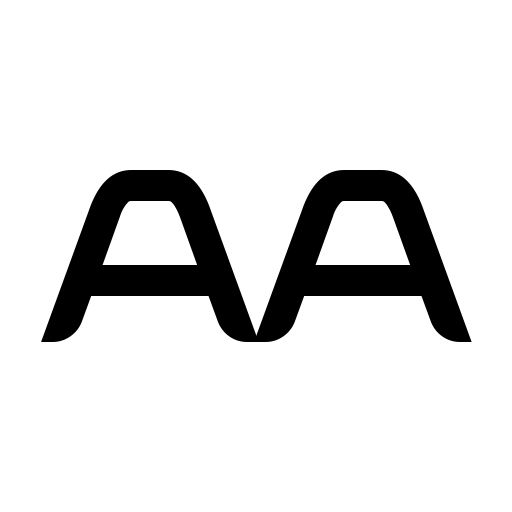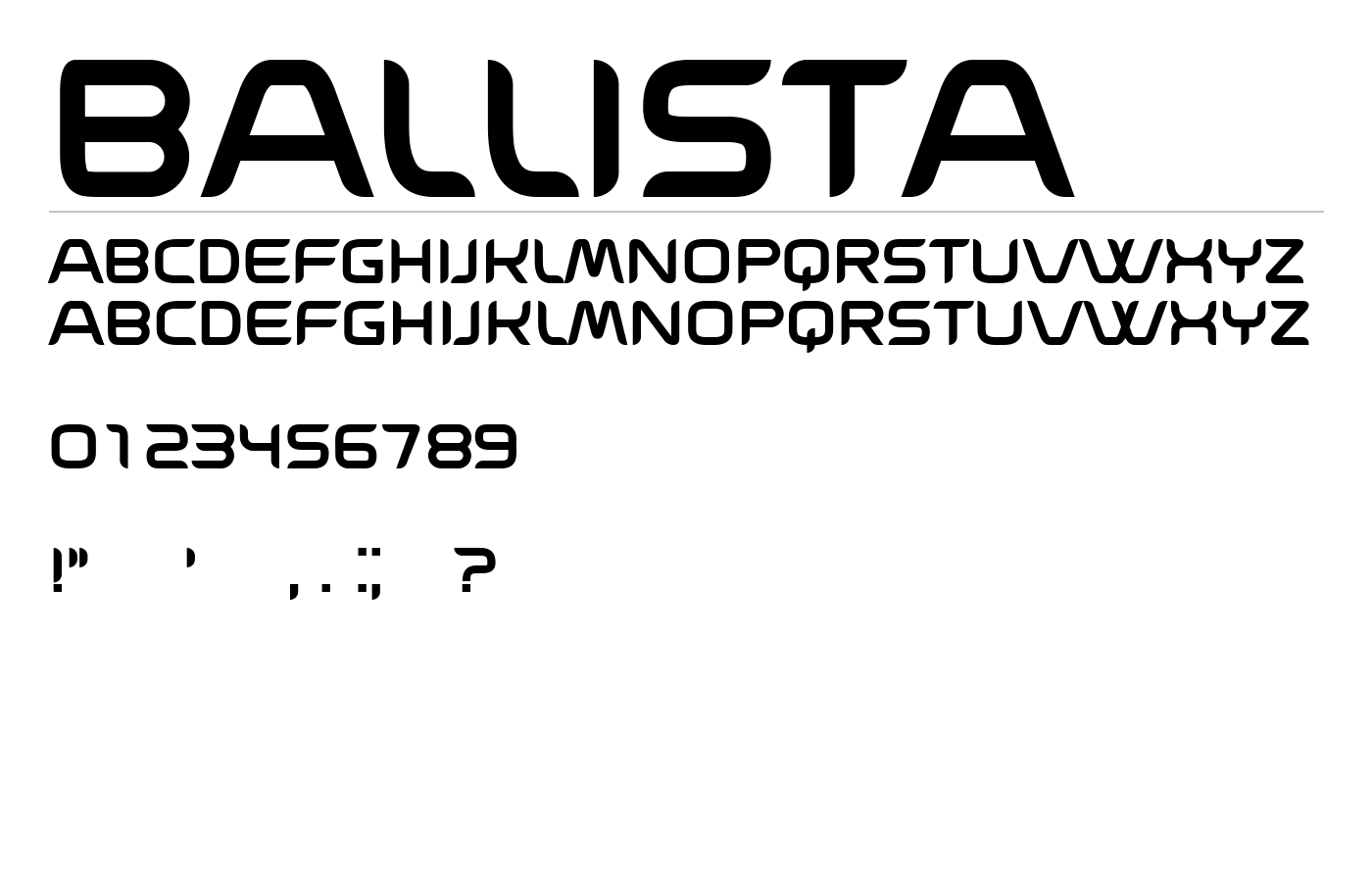
Ballista is a modern, geometric sans serif font characterized by its clean lines, slightly condensed width, and uniform stroke weight that offers a bold yet streamlined appearance. Its futuristic design, with subtle curves and distinctive letter shapes, makes it perfect for tech, branding, and digital projects seeking a sleek and contemporary look. This font works well in headlines and logos where clarity and a modern vibe are important.
Ballista Font
About Ballista Font
| Font family | Ballista Font |